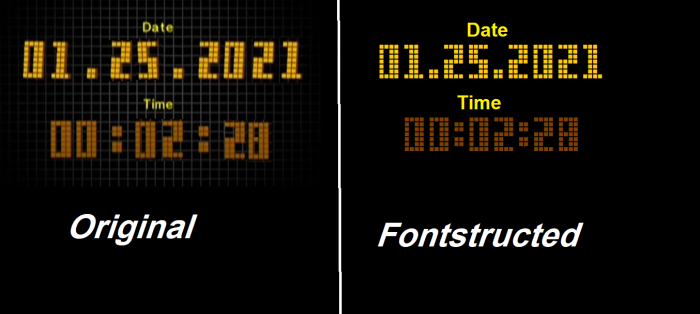
• "/" = Right Arrow
"\" = Left Arrow
Updated Letters to Look Like The Ones From Official Different Language Versions, For Updated Lowercase Go To Press Start.
"~" = /
Added Japanese Support (only the letters displayed on sound options [モノラル, ステレオ] for now.)
also this might be the font for the GAMECUBE™   Calendar and Options.